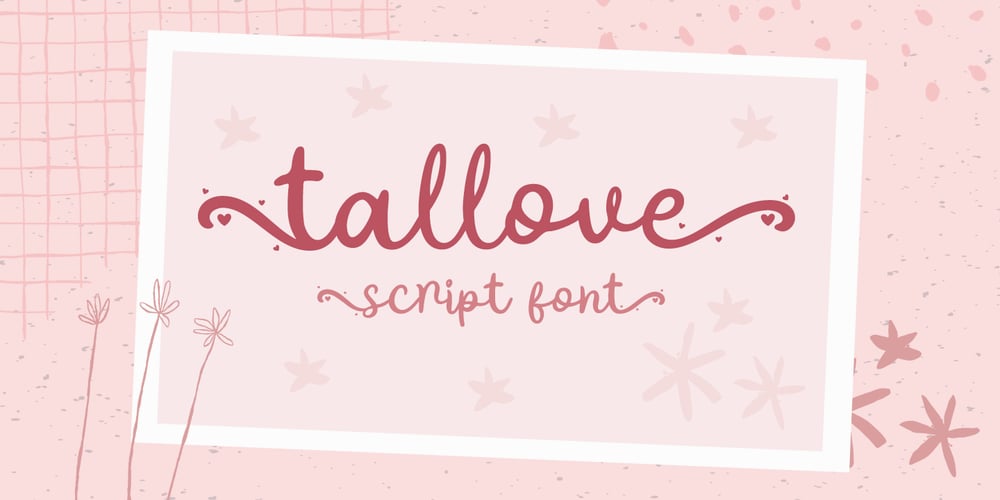
Tallove Font Family was designed by Fadli Ramadhan Iskandar and published by Attype Studio. Tallove contains 1 styles and family package options. Tallove is lovely script font with swash on beginning & ending word. This font perfect for valentine & wedding theme design. Combine it with Tallove beginning, ending swash & ligatures to make perfect design for yor projects. Tallove perfect for valentine promotion, wedding invitation, branding, logo, invitation, stationery, social media post, product packaging, merchandise, blog design, game titles, cute style design, Book/Cover Title and more.What’s Included :- Tallove Font- Beginning Swash- Ending Swash- Ligature- Multilingual Support —Hope you enjoy with our font!Attype Studio